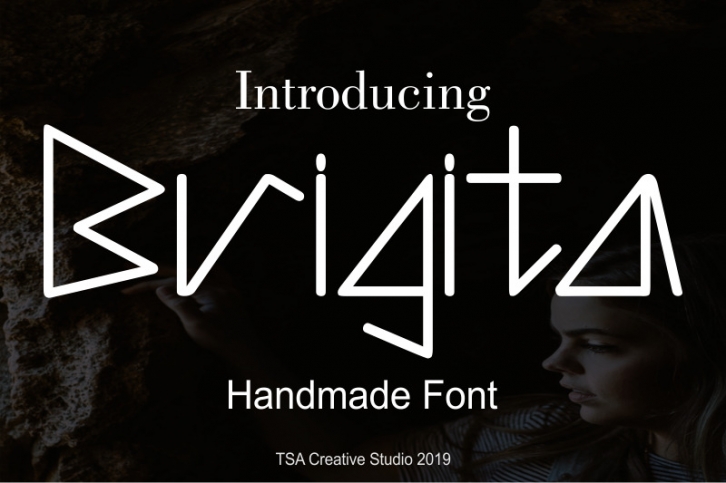
Introduce:
Brigita fonts, handwritten fonts in a modern style.
Brigita is perfect for projects, fashion shop design, logo design, product packaging, magazines, headlines, displays, flyer